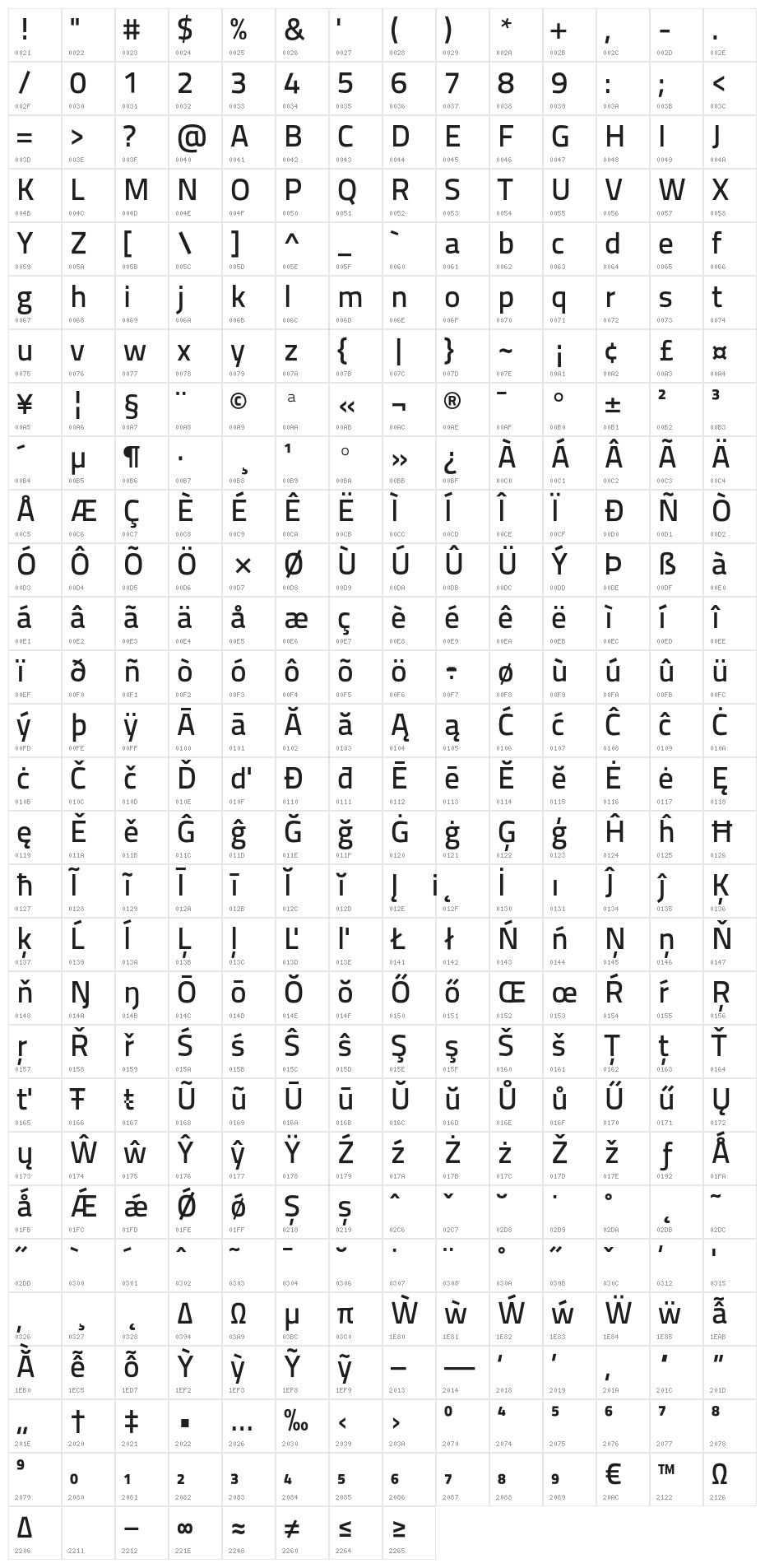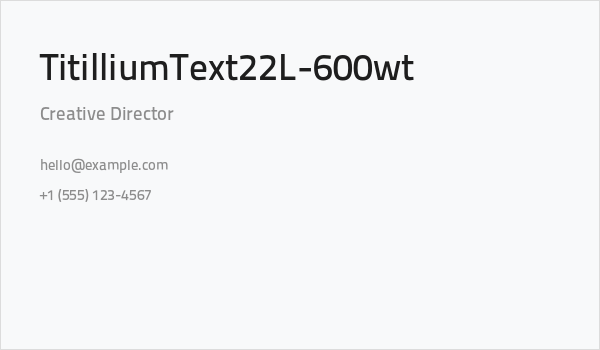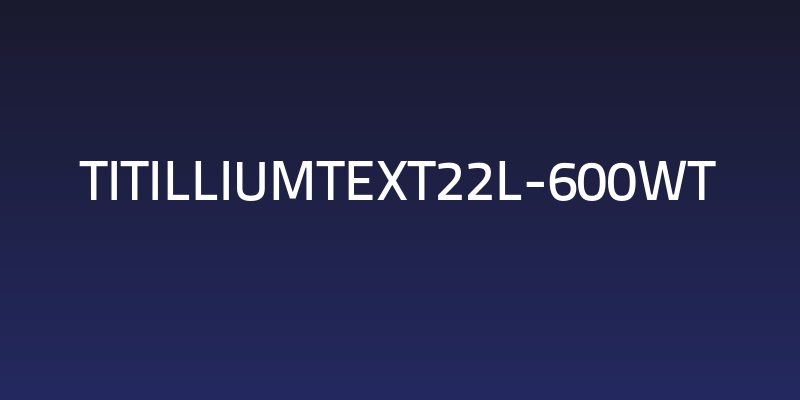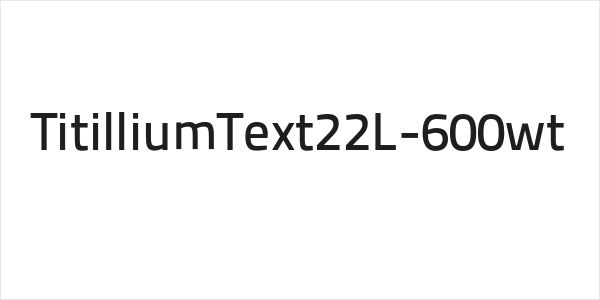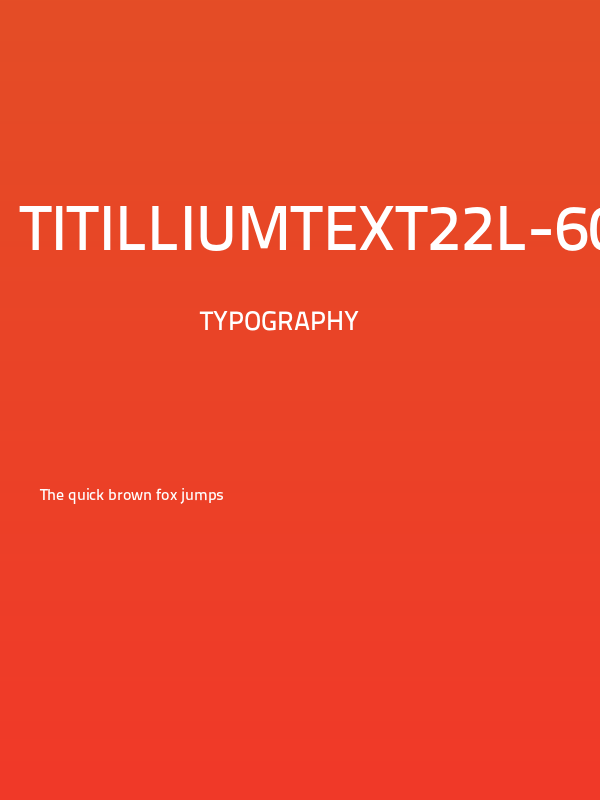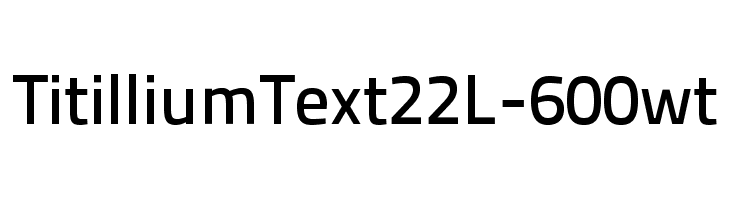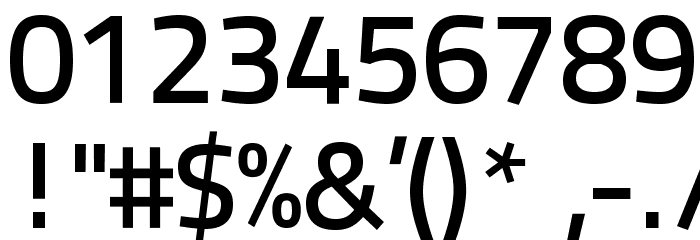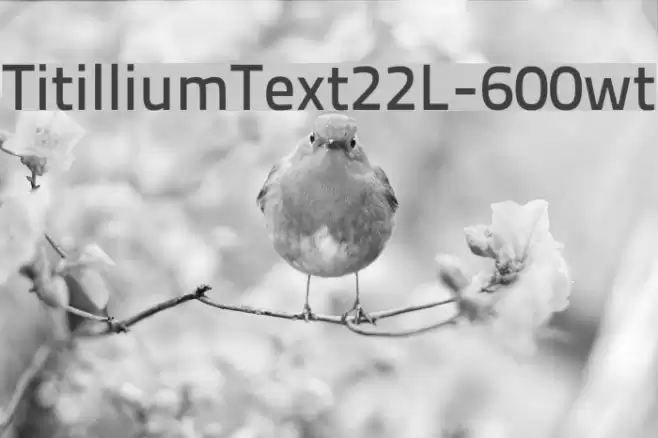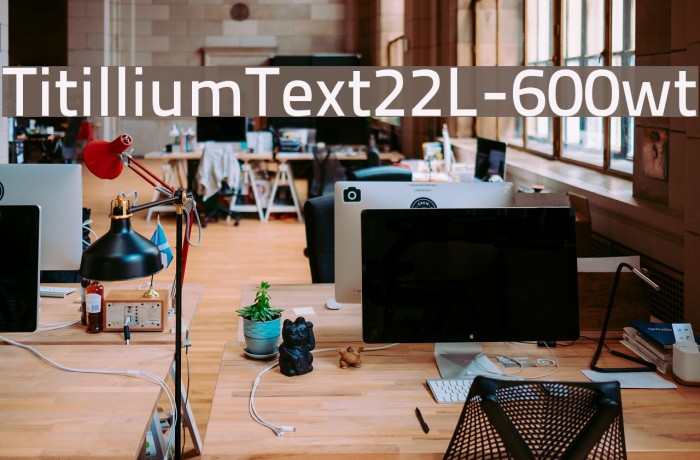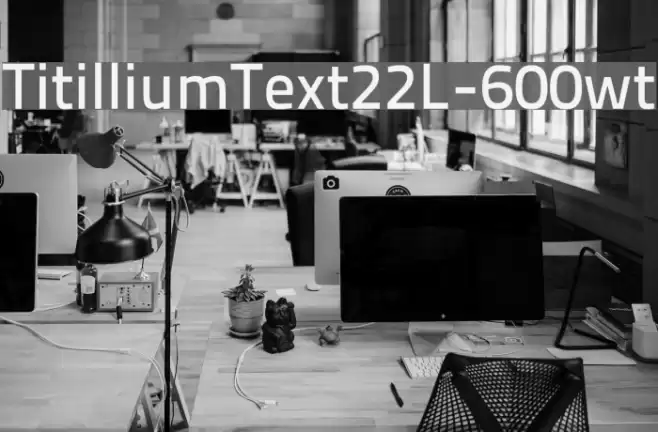
TitilliumText22L-600wt Font
TitilliumText22L-600wt Description
This font features a clean and modern sans-serif design, characterized by its geometric shapes and uniform stroke widths. The uppercase letters are bold and assertive, while the lowercase letters maintain a friendly and approachable appearance. The numerals are clear and easily distinguishable, making them ideal for data presentation. Special characters are well-defined, ensuring versatility across various applications. The overall design is balanced, with a focus on readability and functionality, making it suitable for both digital and print media.
| Use Case | Headlines, Body text, Logos |
| Proposed Projects | Ideal for web design, corporate branding, user interfaces, and editorial layouts. |